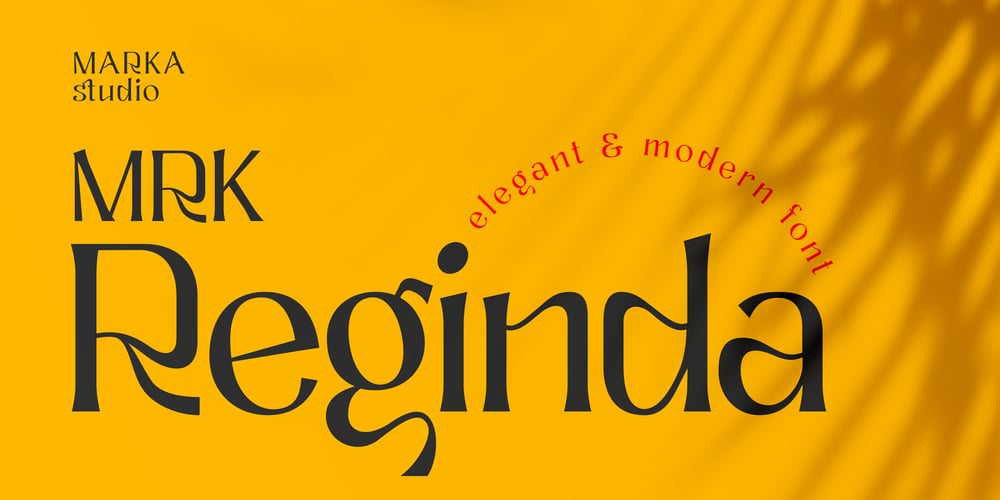
MRK Reginda Font Family was designed by Murad Asadov, Rizvan Bagirli, Qnyaz Yaqubov and published by Marka Design. MRK Reginda contains 1 styles and family package options. MRK Reginda is a psychedelic-inspired sans font. It’s trendy, stylish, and playful. Thin and curve lines mix with smooth thick curves creating unique glyphs that are perfect for interesting wordmarks and typographic posters. The stylish and extraordinary font is containing ligatures, all punctuations, and supports multi-languages.This font is suitable for various purposes such as street style designs, t-shirts, posters, logos, labels, packaging, branding, editorial design, UI designs, and any modern purposes.